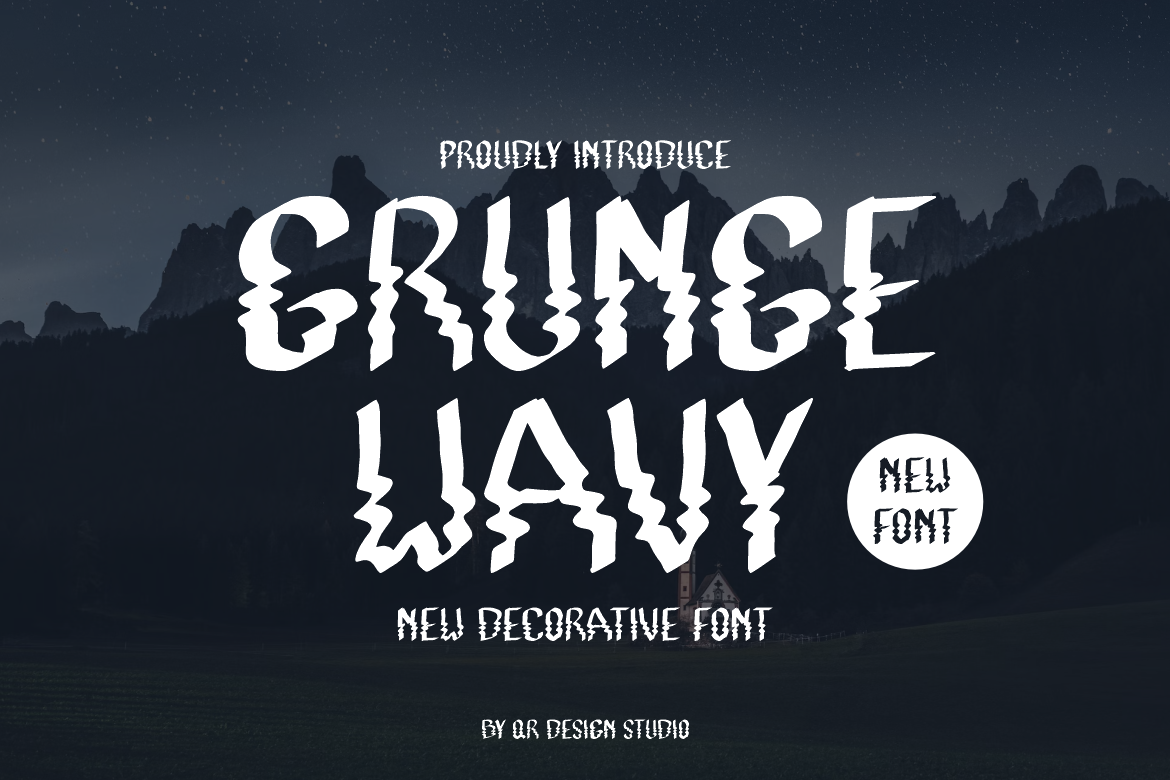
Grunge Wavy Font
Grunge Wavy Font is a decorative and authentic display font. The font is suitable for any branding project like poster, logo, sport, and many more. Outstanding in a wide range of contexts.